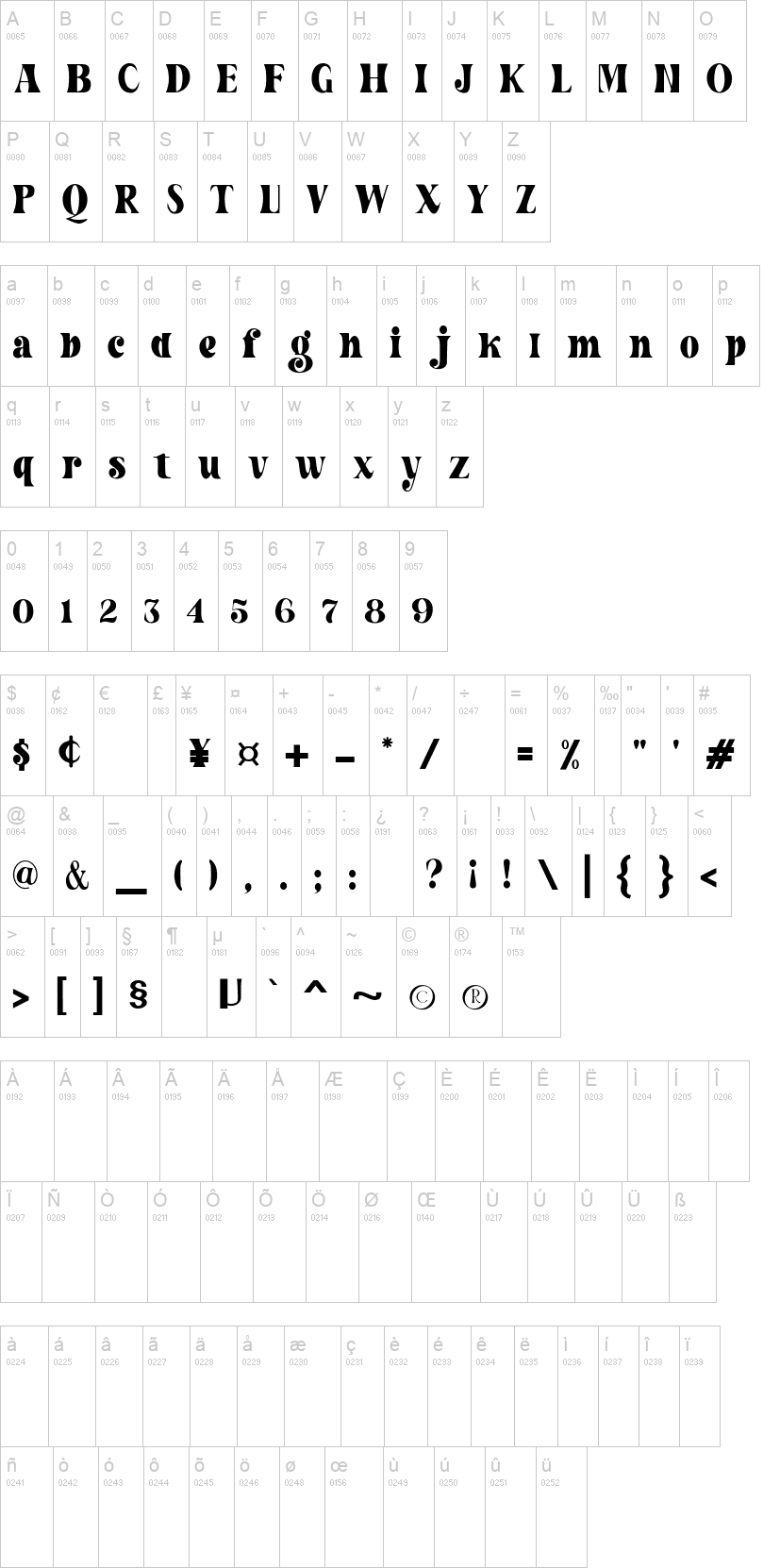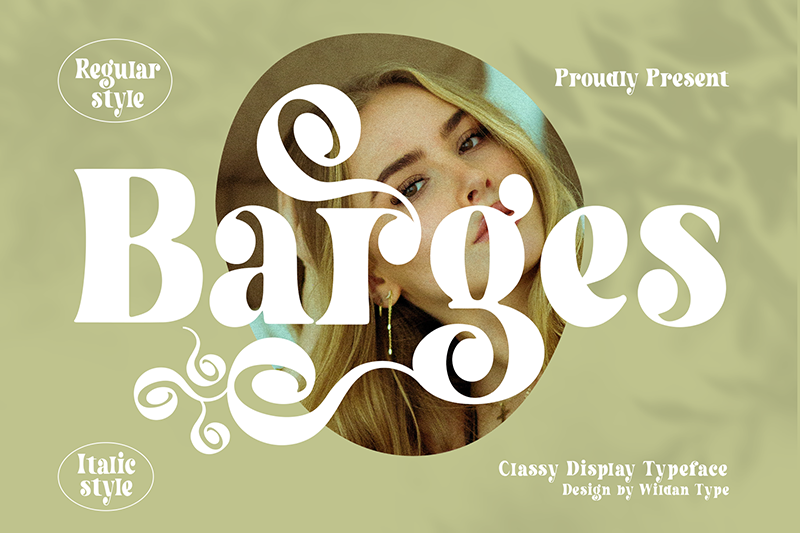
Note of the authorBarges is a serif Display font style, suitable for all of your product. This is only personal use. if you need full version and Get more of my product, come to this link;